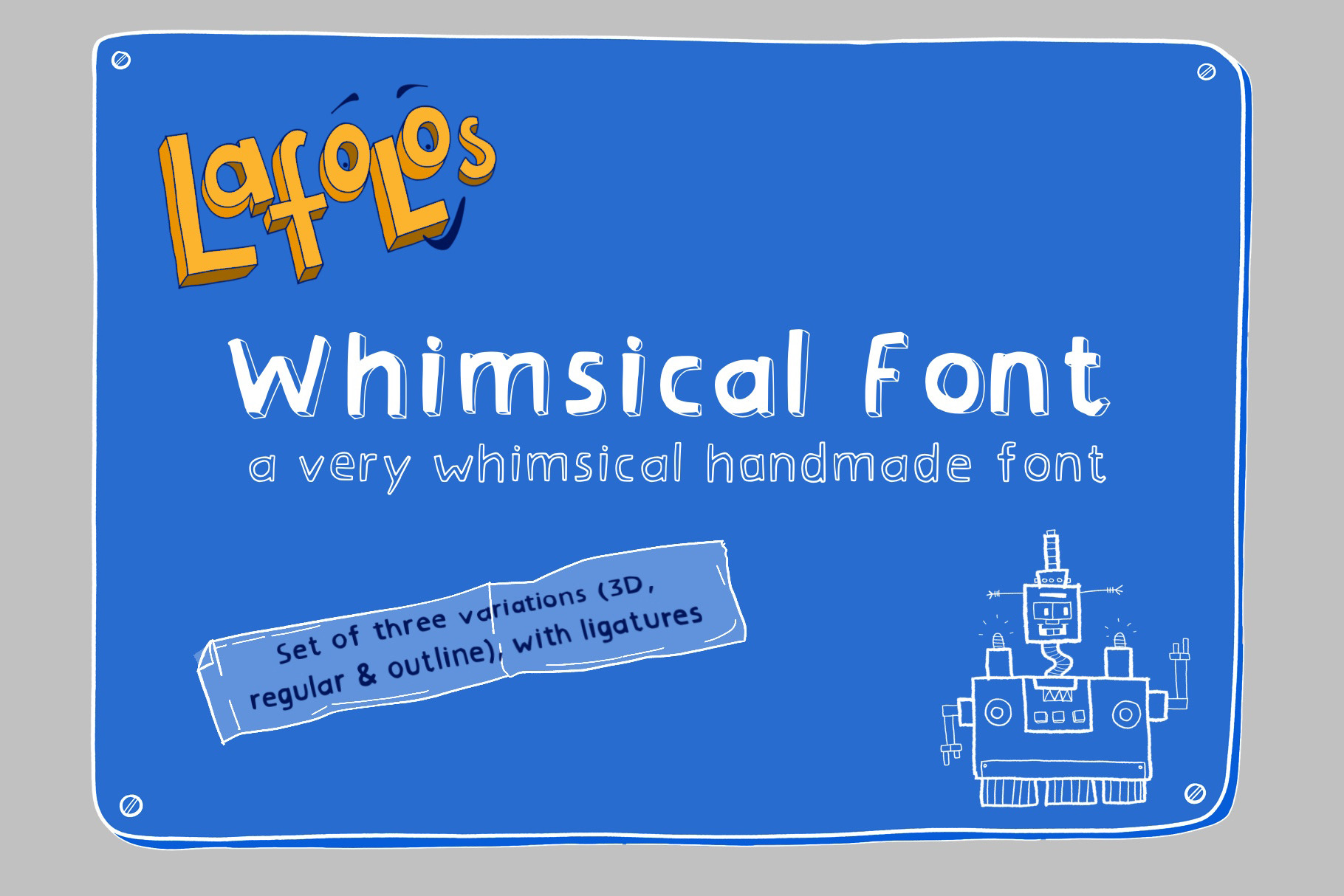
LAFOLOs Whimsical Font 3D
LAFOLOs Whimsical Font - a quirky hand drawn font for headlines, package, branding and more. Comes in three variations: Regular, Regular Outline and 3D! Combine the different styles to add interest to your creative projects.
Use the font to create individual designs for headlines in chapter books, greeting cards, notebooks, stickers and so much more.